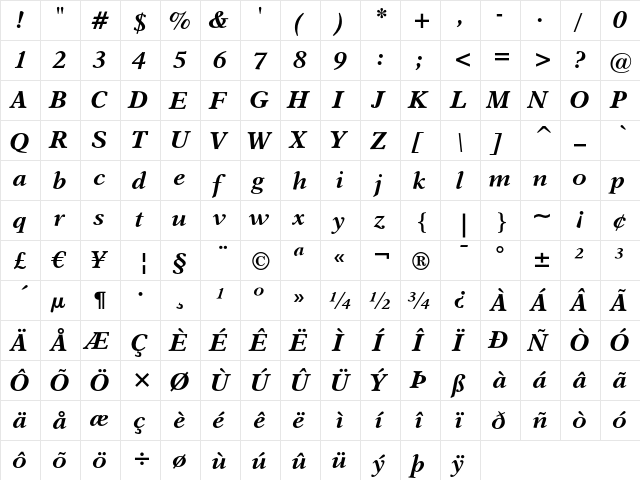
Dutch 823 Bold Italic
Design Context for Dutch 823 Typeface
Dutch 823 is a composed and adaptable typeface that performs quietly and consistently across a wide range of design contexts. The slanted form adds forward momentum and visual energy. Its bold stroke weight gives it real presence on the page.
Pro Tip: Use Dutch 823 for emphasis, pull quotes, and subheadings where its slanted energy can add rhythm to the layout.